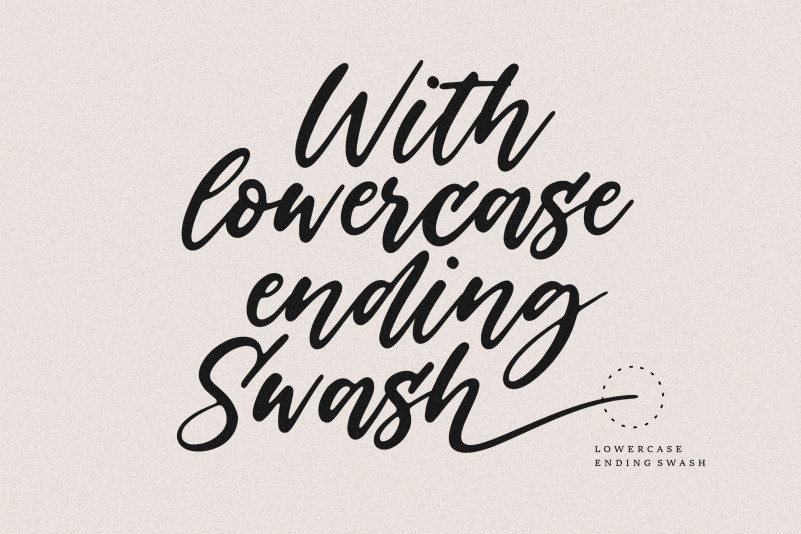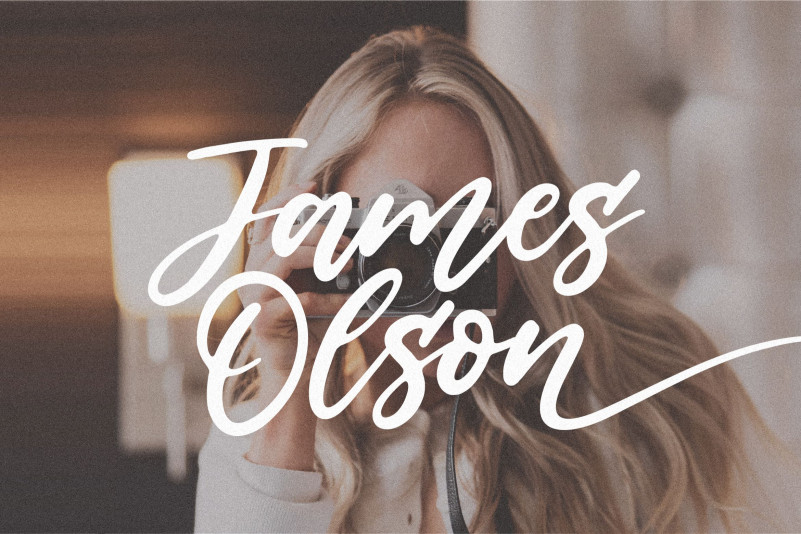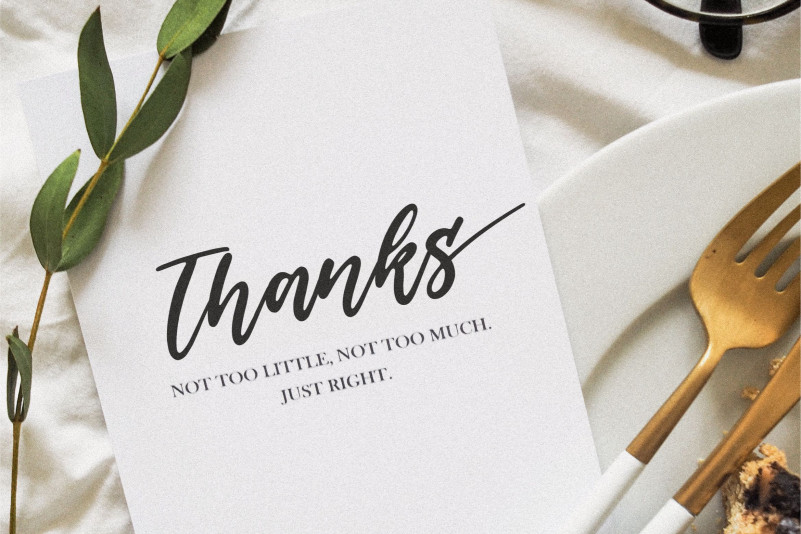
Introducing by Balpirick Studio.
Proudly Present, Backhome Font.
Backhome is a Modern Handdrawn Font.
It’s perfect for product packaging, branding project, megazine, social media, wedding, or just used to express words above the background.
Lowercase font Stylistic Alternates Ligatures Symbols & Punctuation OpenType Features.